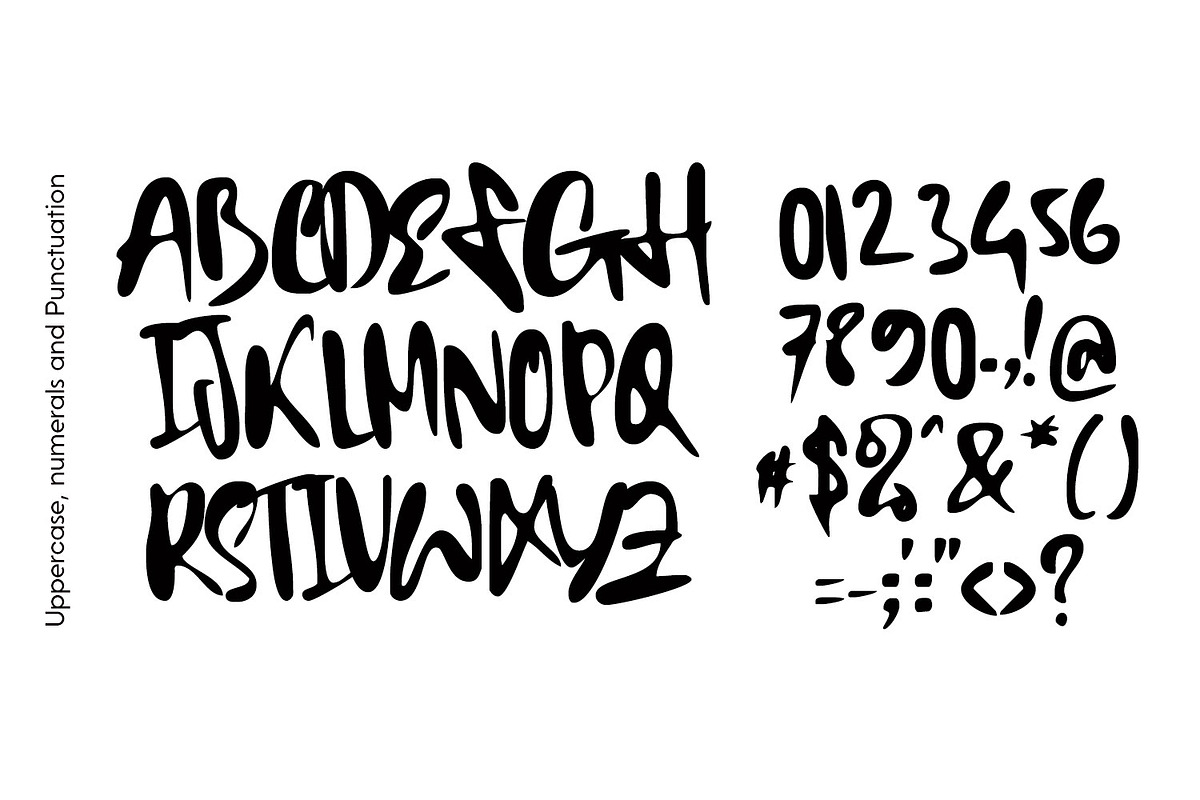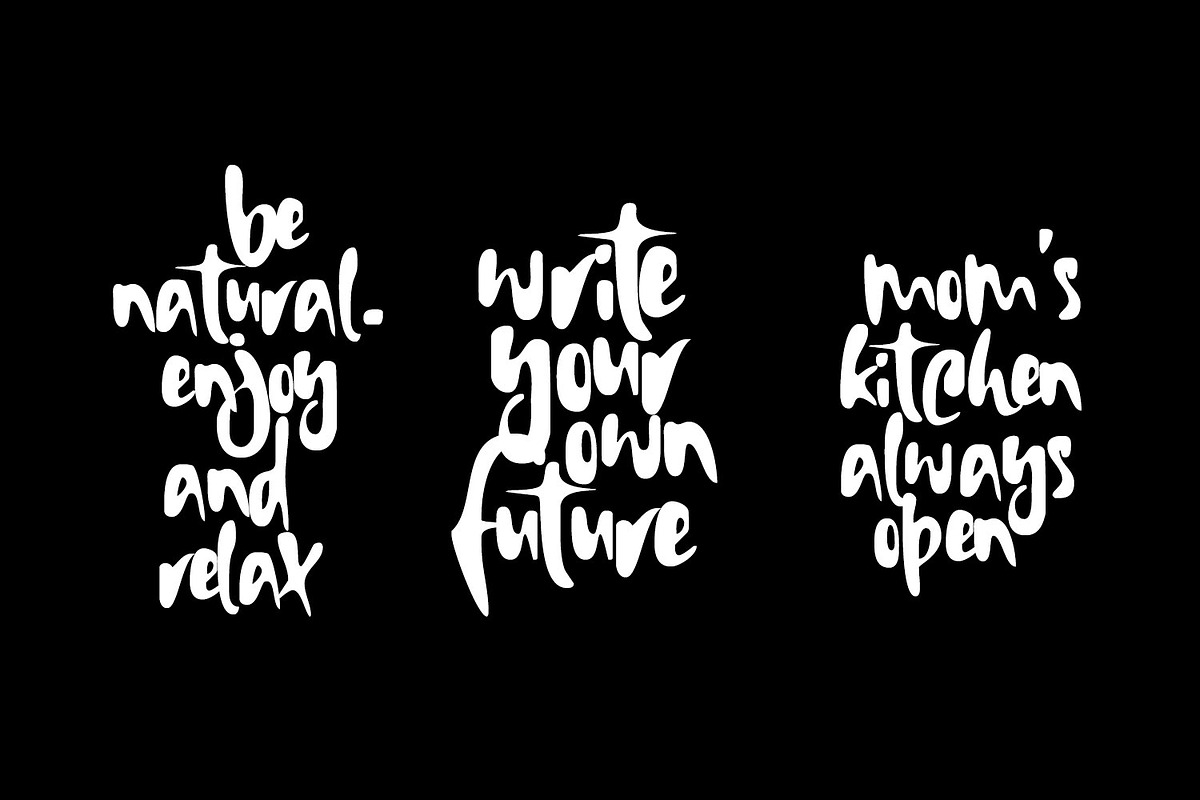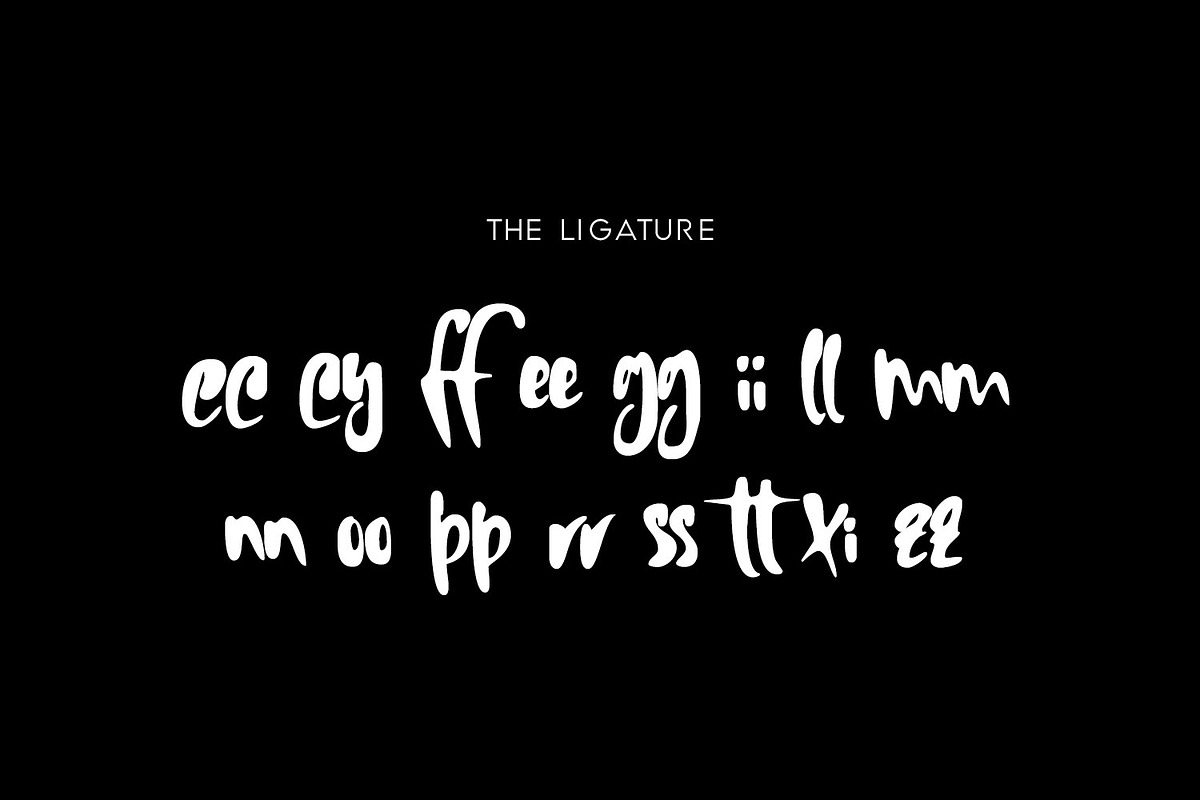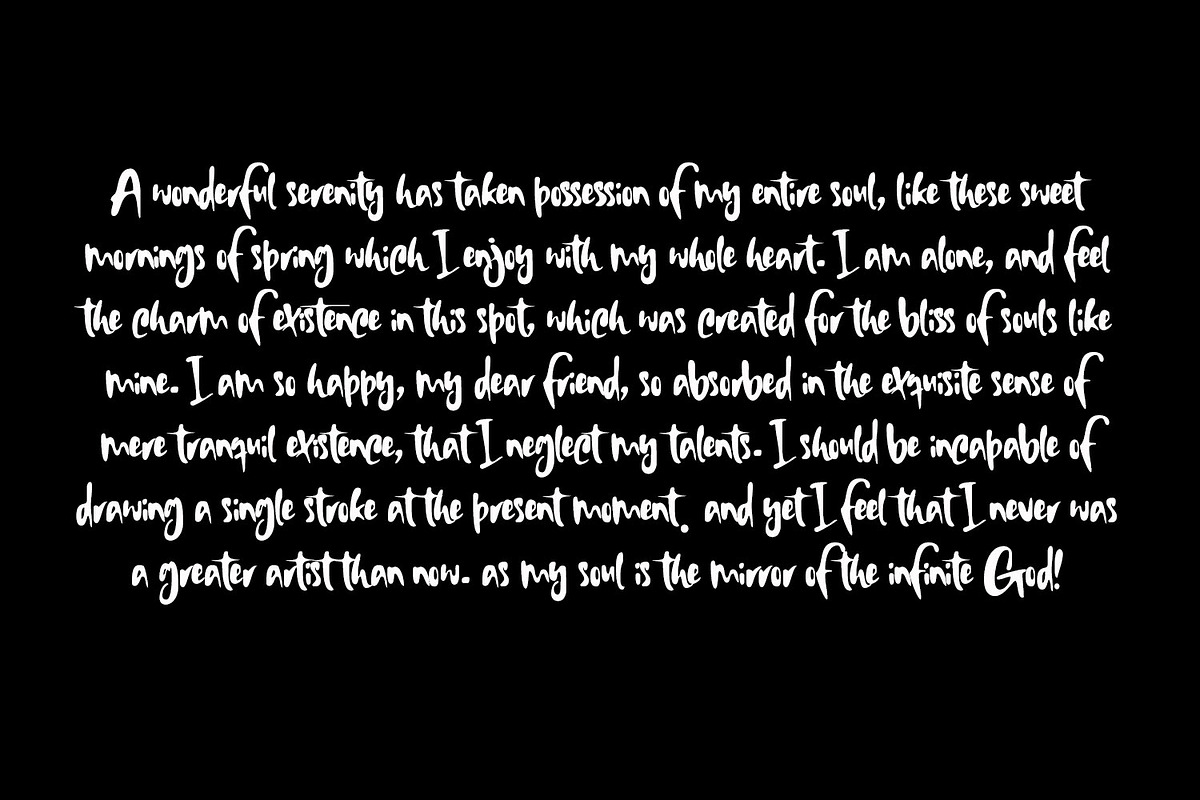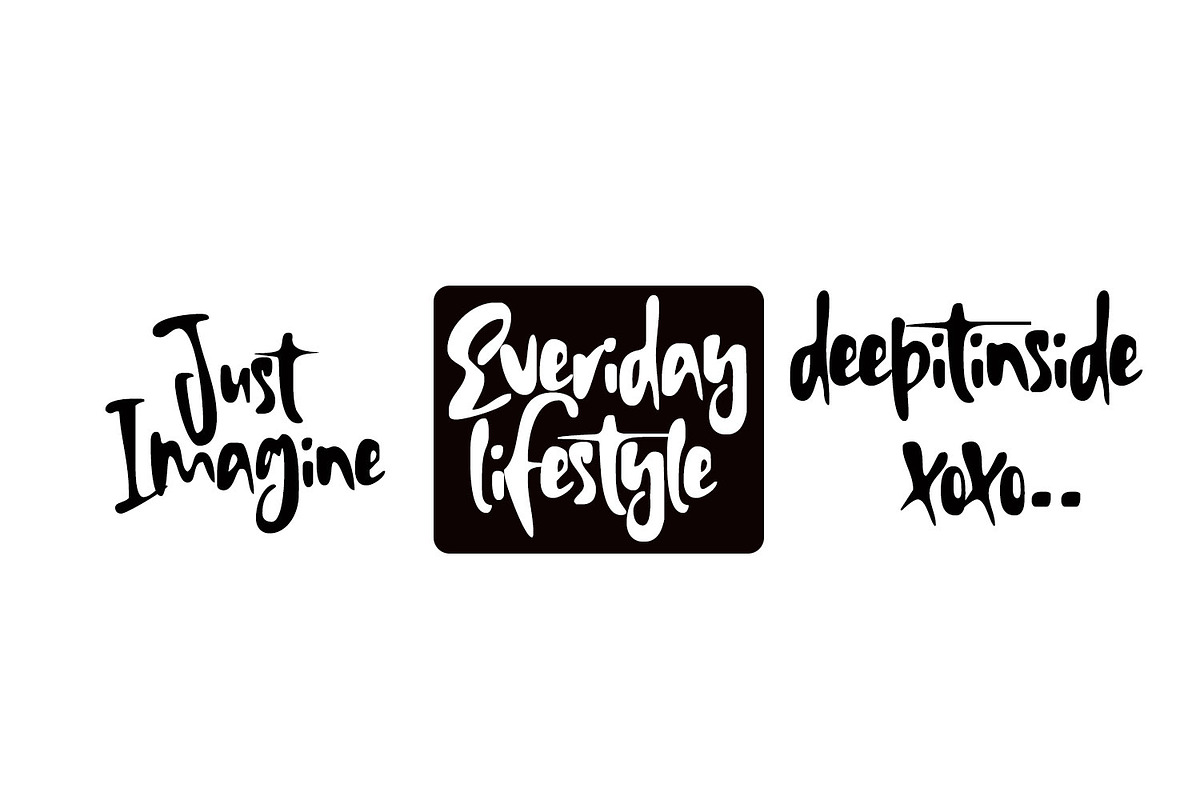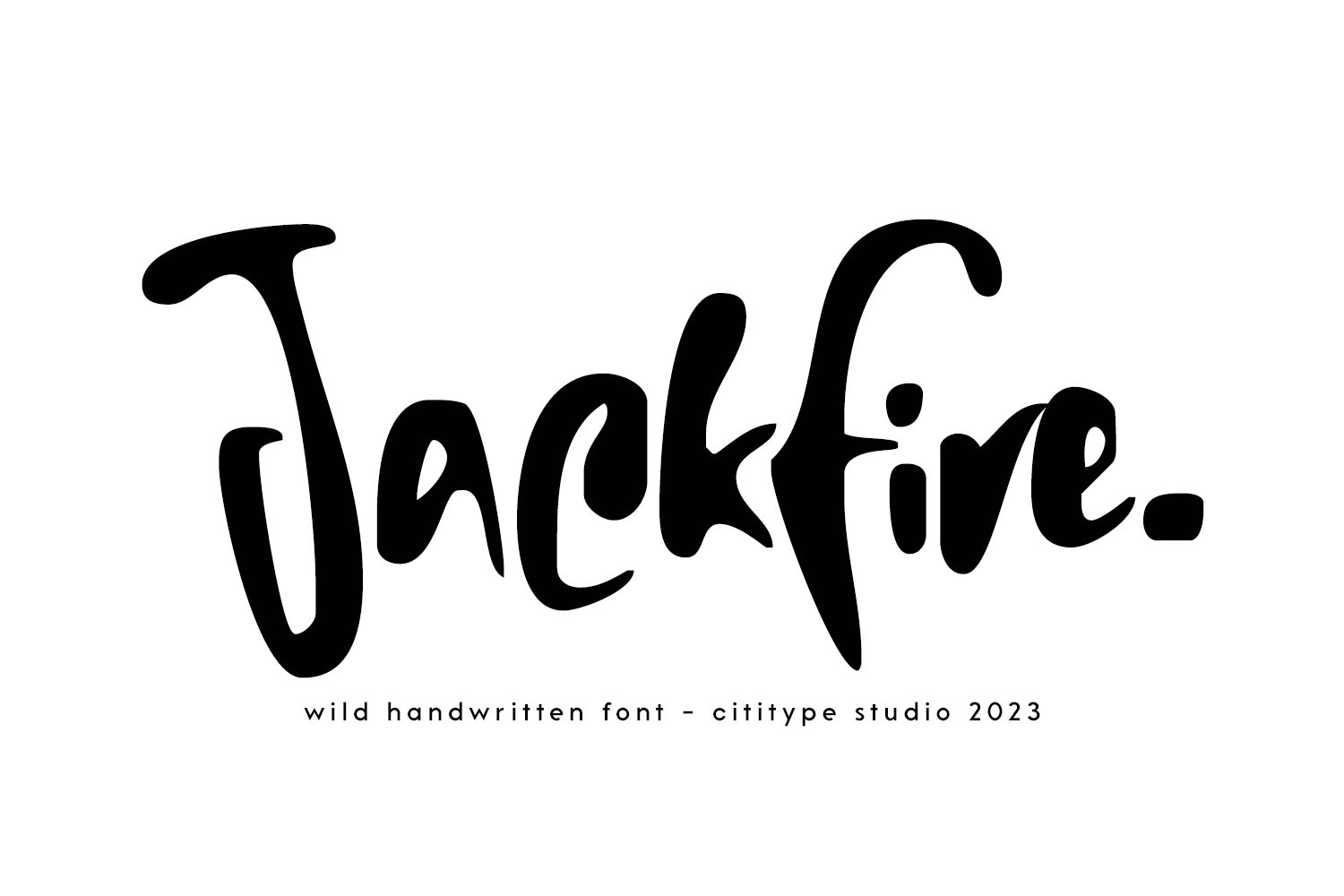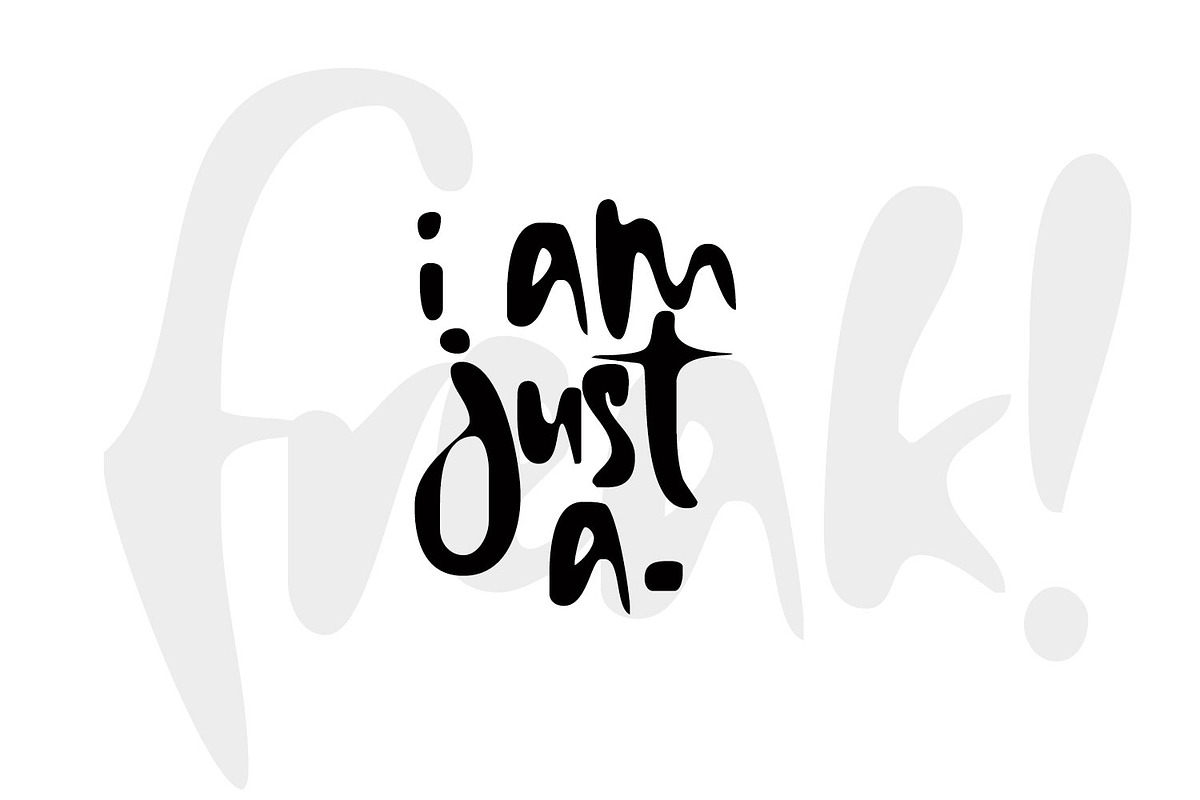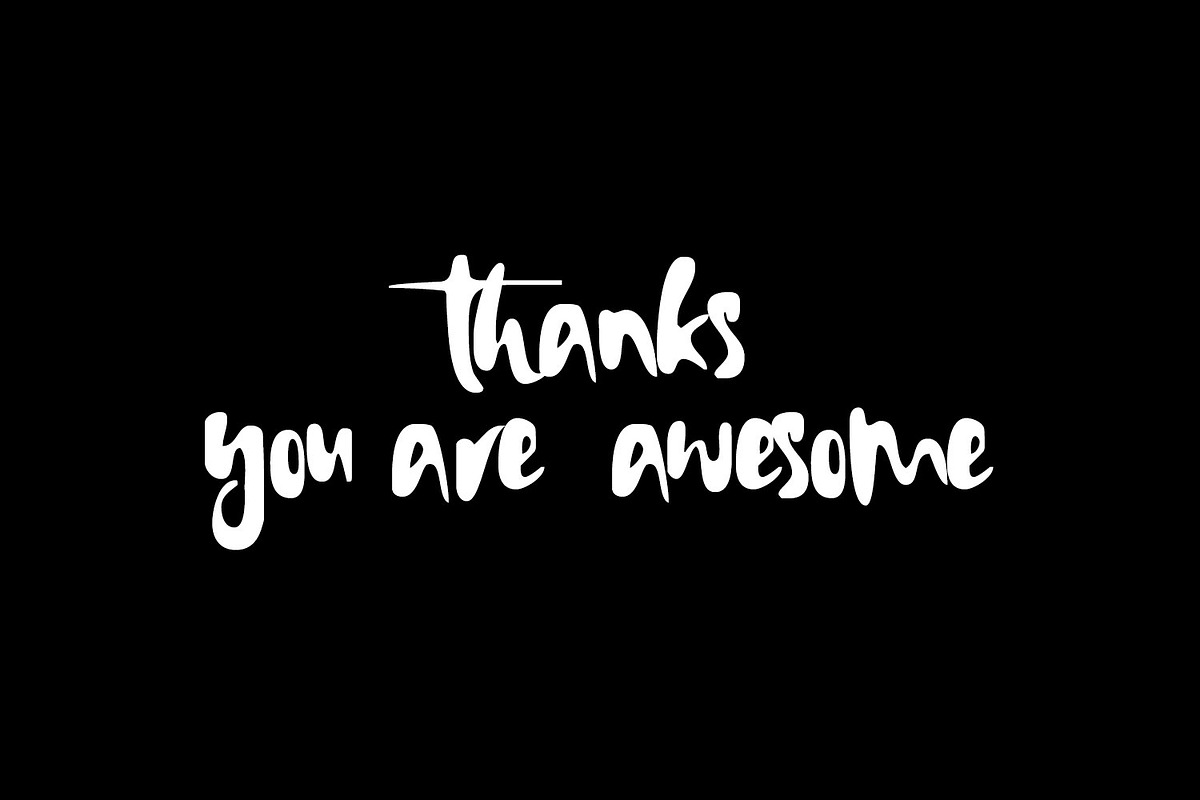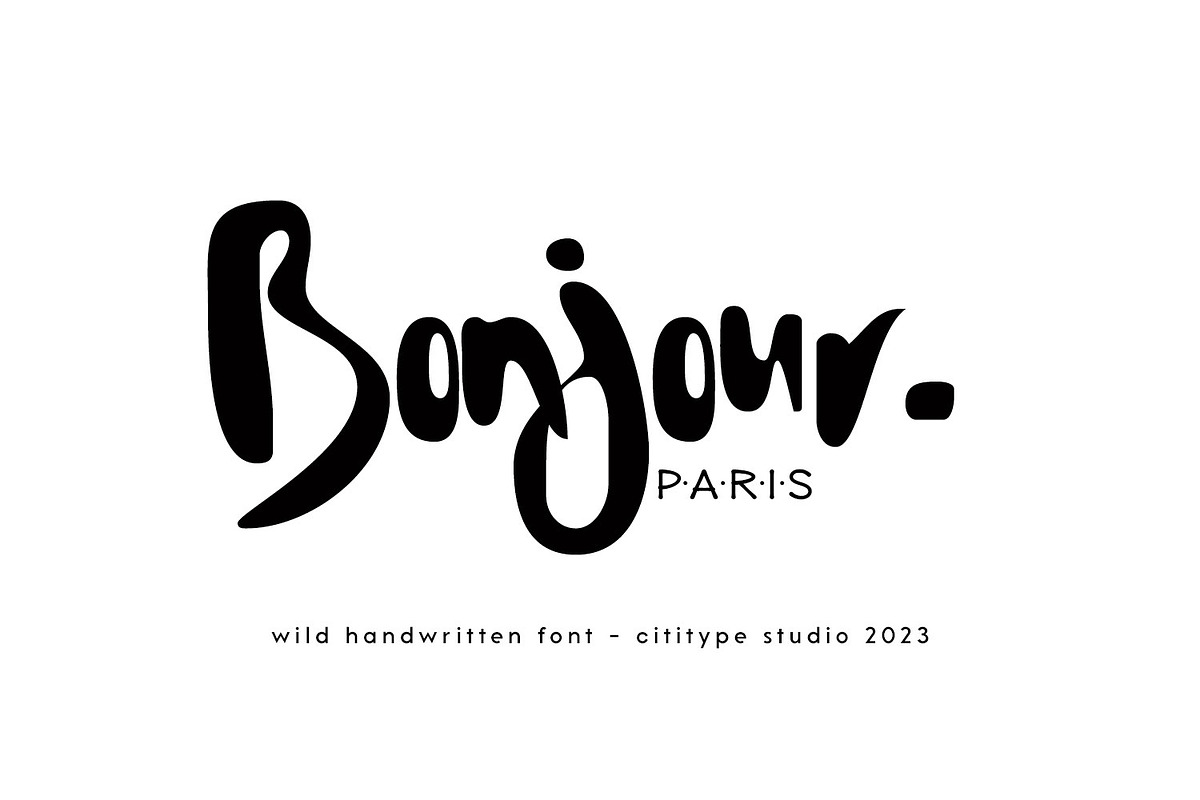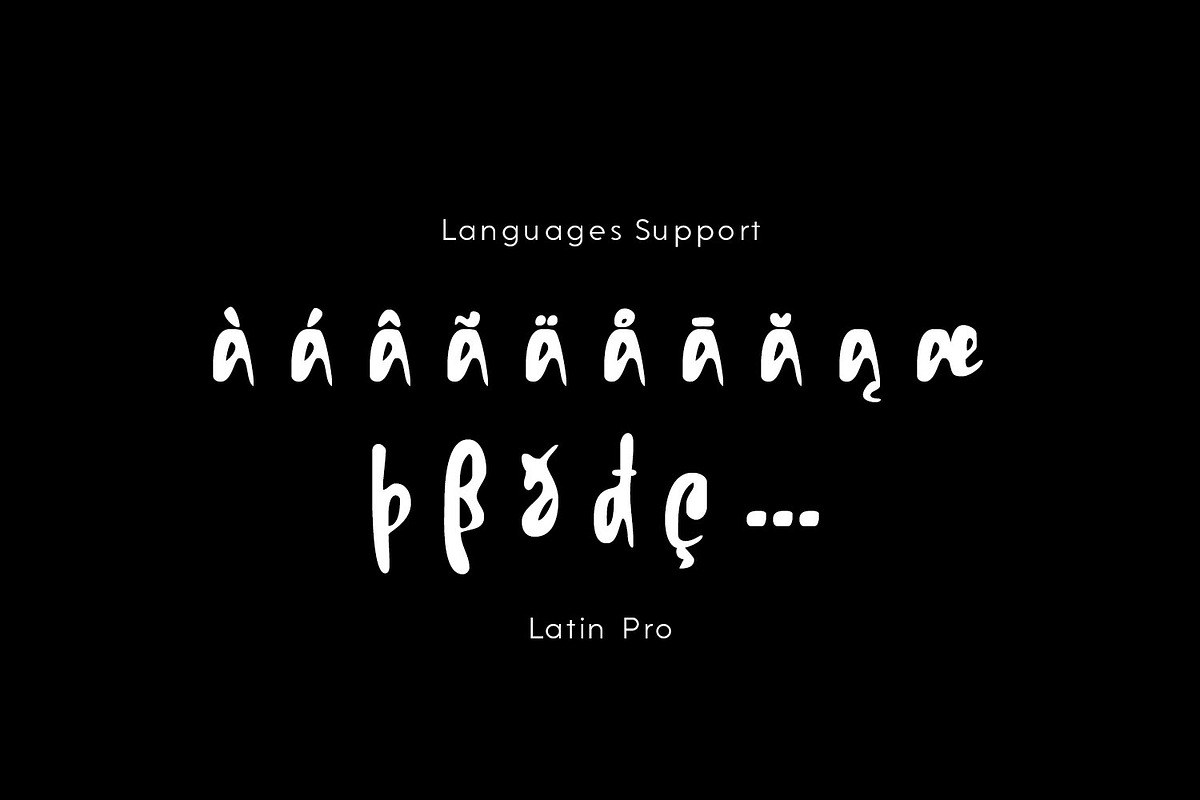
Jackfire - Wild handwritten Font
Introducing Jackfire, a captivating handwritten font that embodies the natural ink flow of a skilled hand. Its appearance reflects the genuine essence of ink and evokes a sense of soulful emotion. With its relaxed and casual feel, Jackfire stands out, making it a great choice for those looking to make a bold statement. Whether you're designing a logo or developing a brand, Jackfire brings a distinctive charm that sets your work apart. Allow Jackfire to infuse your designs with its unique character and capture the attention of your audience